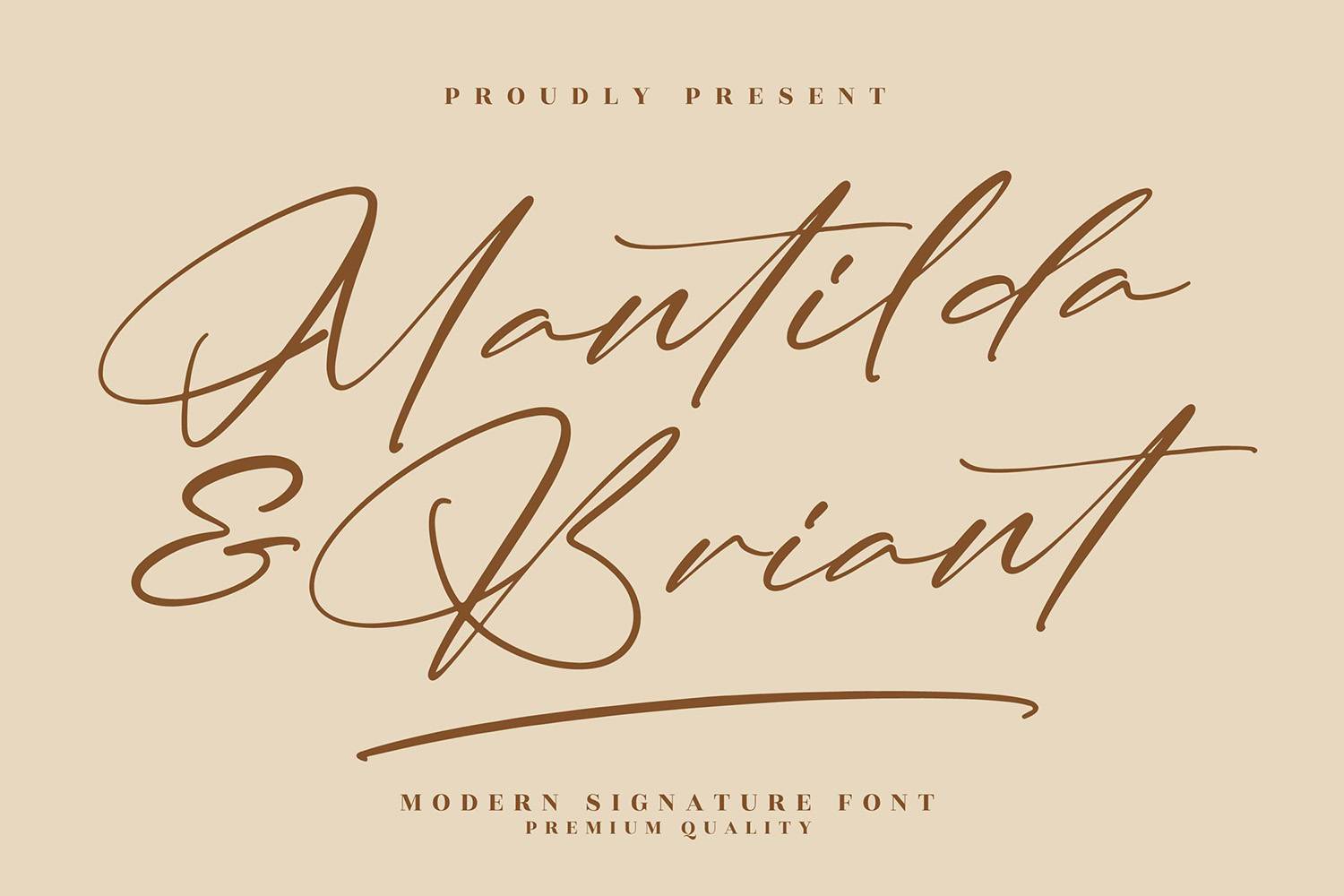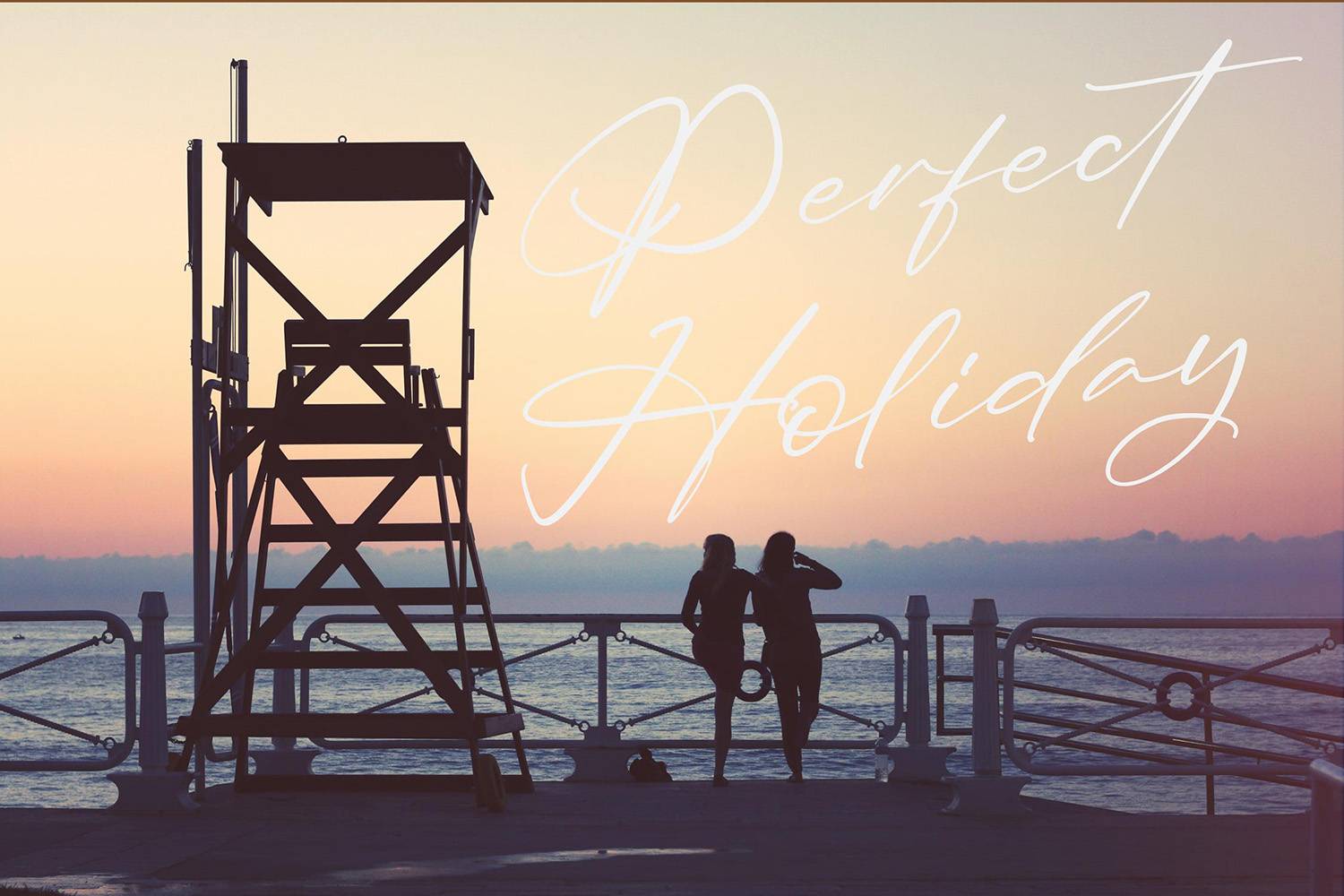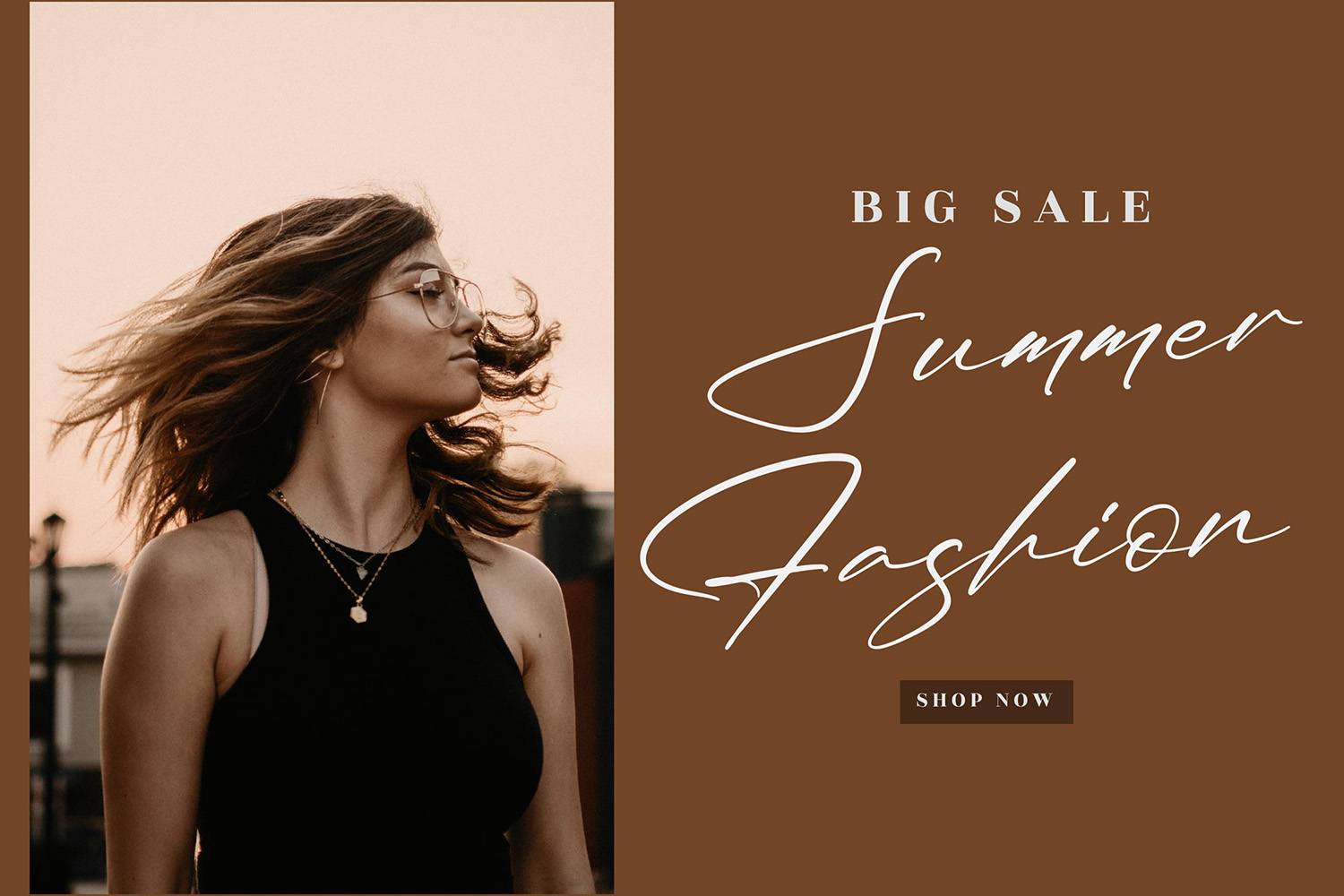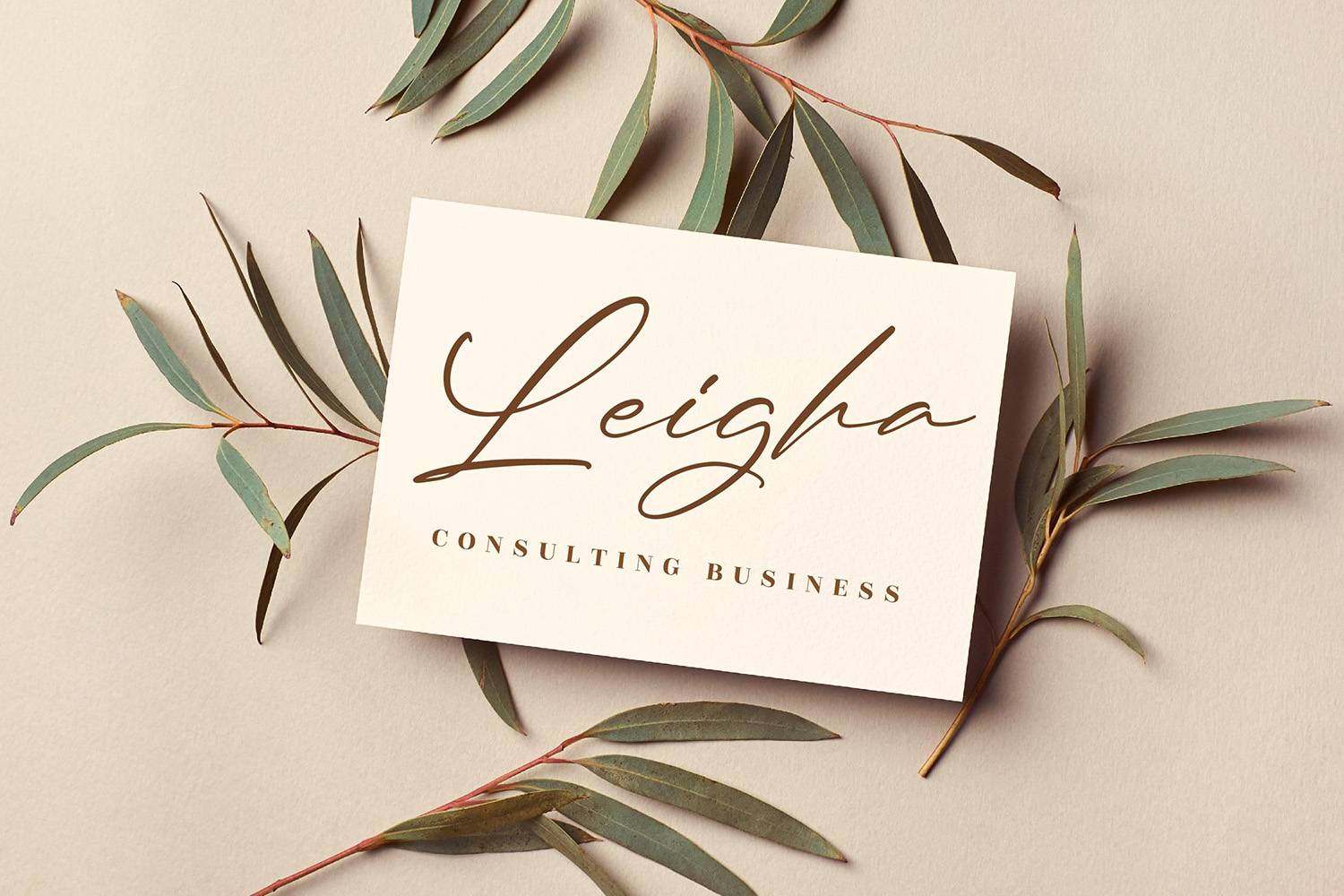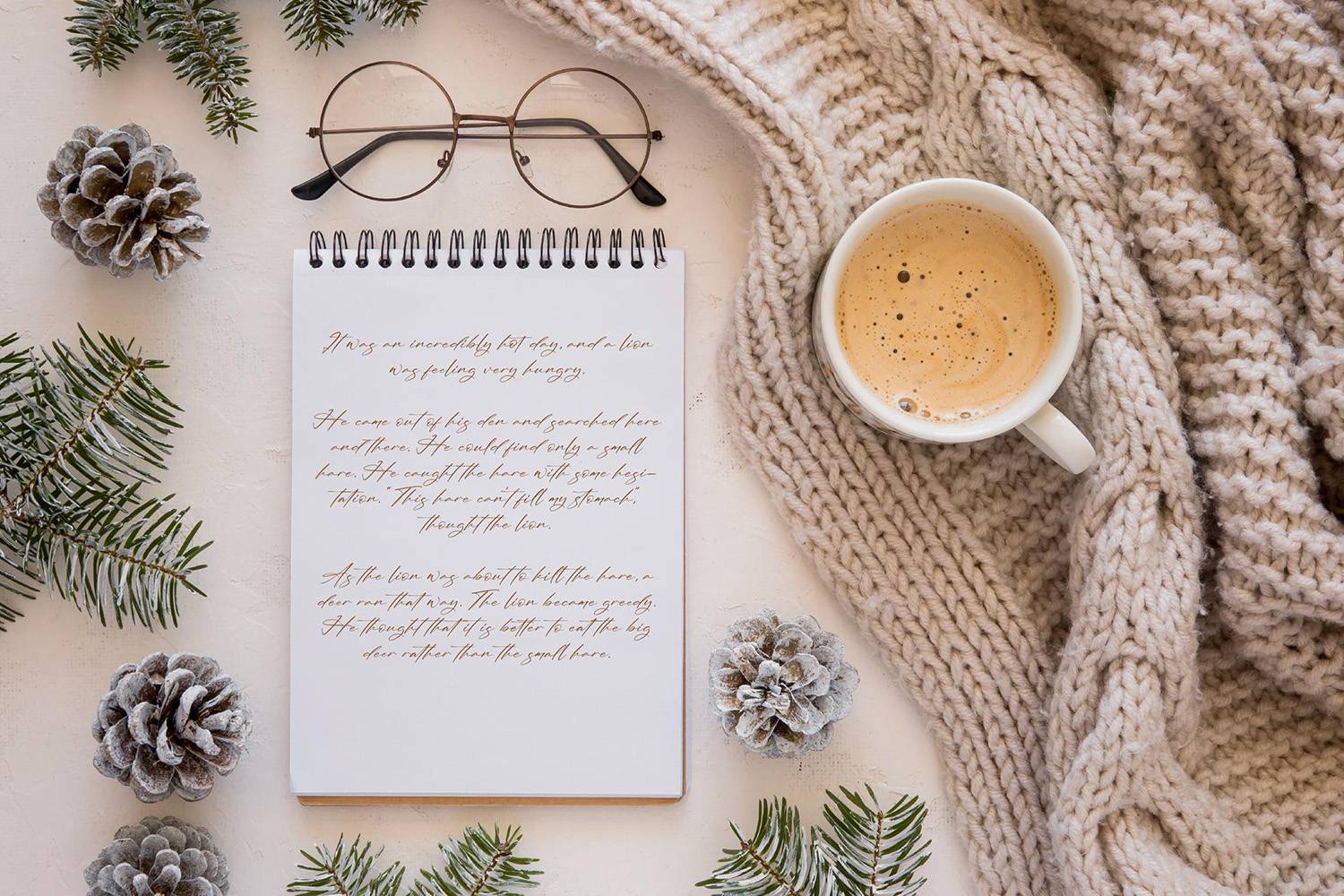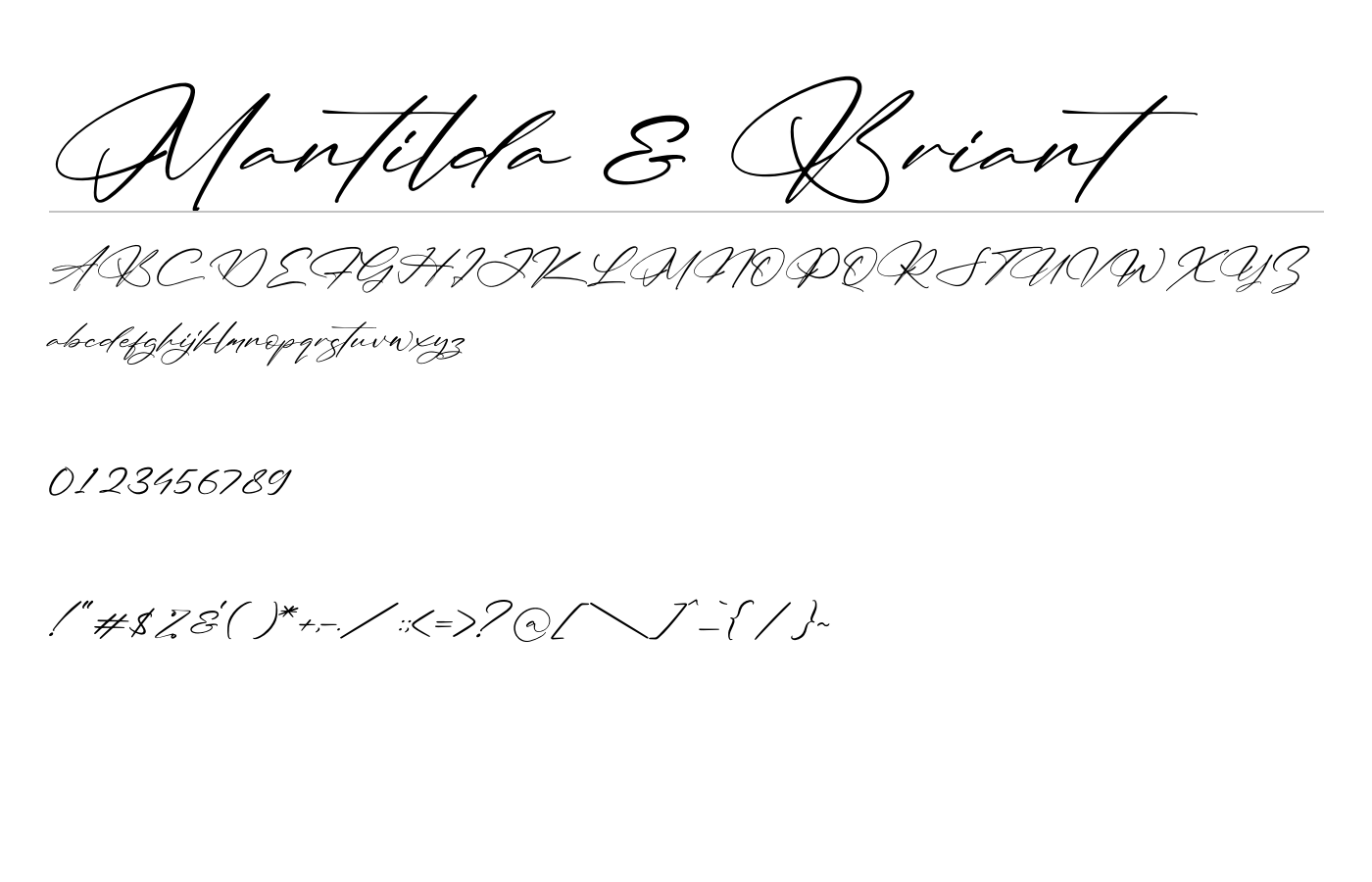
Mantilda & Briant is a delicate, elegant script font with fine, flowing strokes that emulate natural handwriting, perfect for adding a touch of sophistication and grace. Its slender letterforms and smooth, connected lines make it ideal for use in invitations, branding, and luxury design projects where a refined, personal feel is desired. This font’s airy and stylish character enhances any creative work aiming for an intimate and polished aesthetic.
Mantilda & Briant Font
About Mantilda & Briant Font